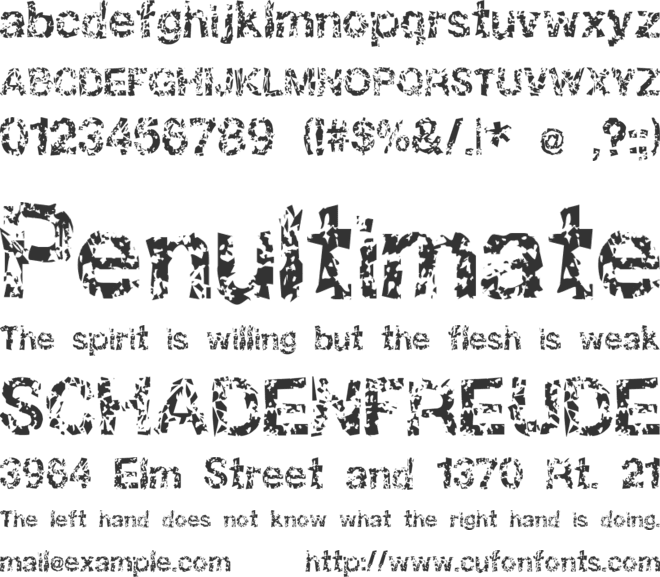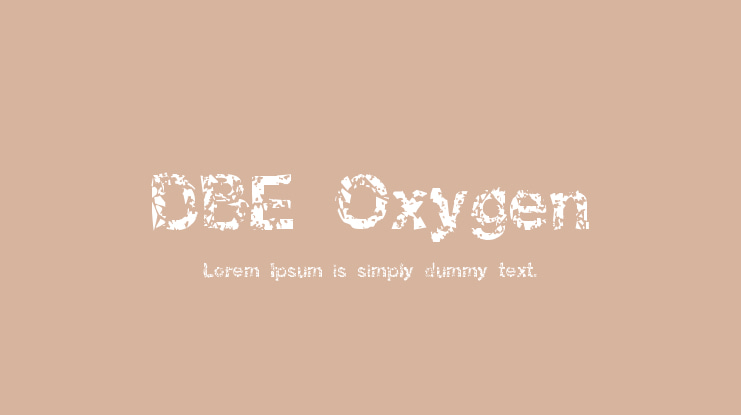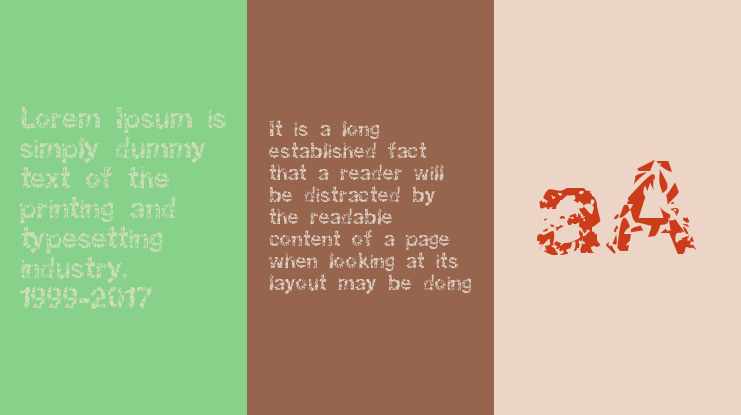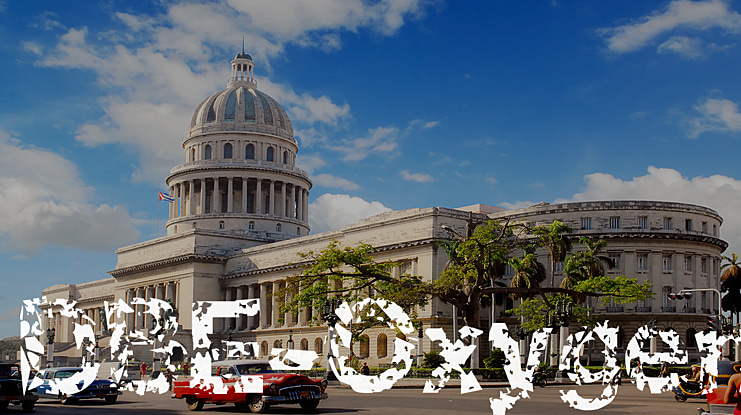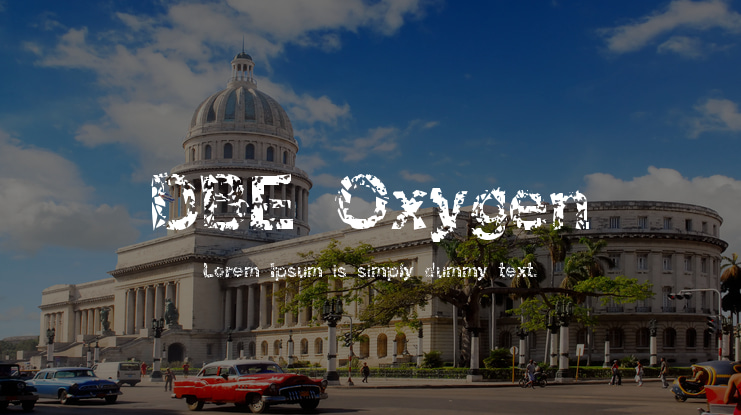
DBE Oxygen Font
A fragmented and gungy font, the first in a new series. Created by Dave Panfili for Davalign LLC. Visit www.davalign.com for more fonts.